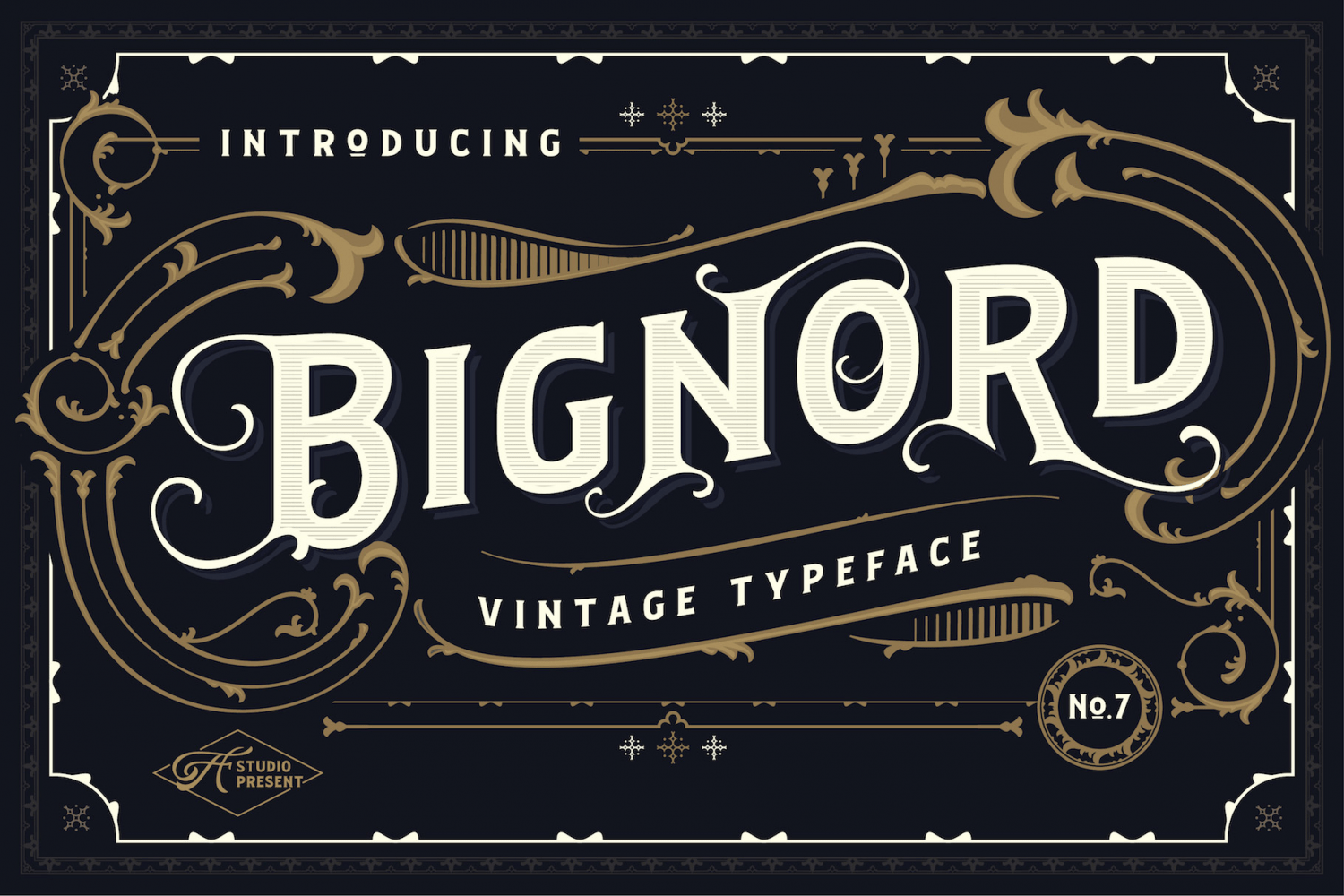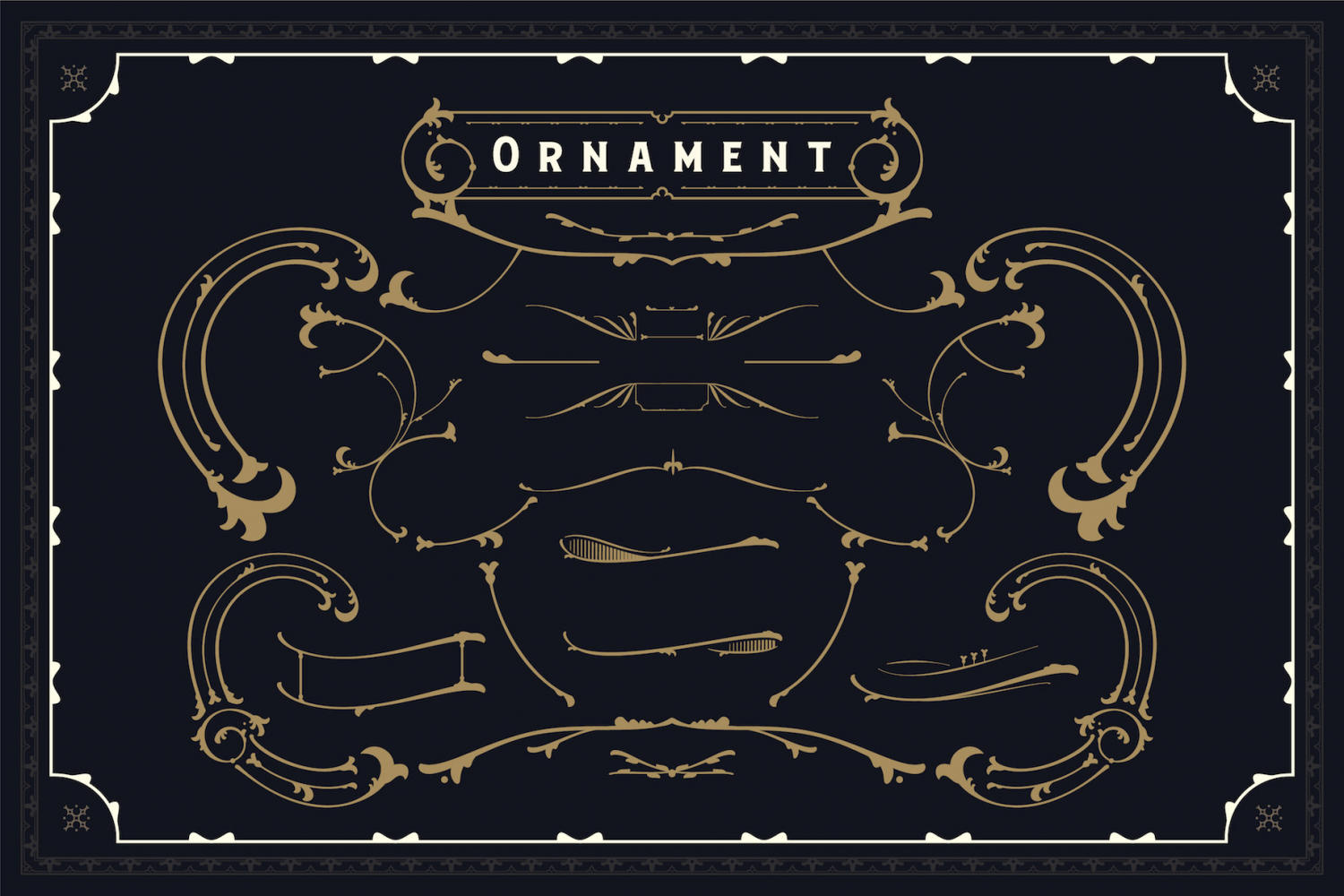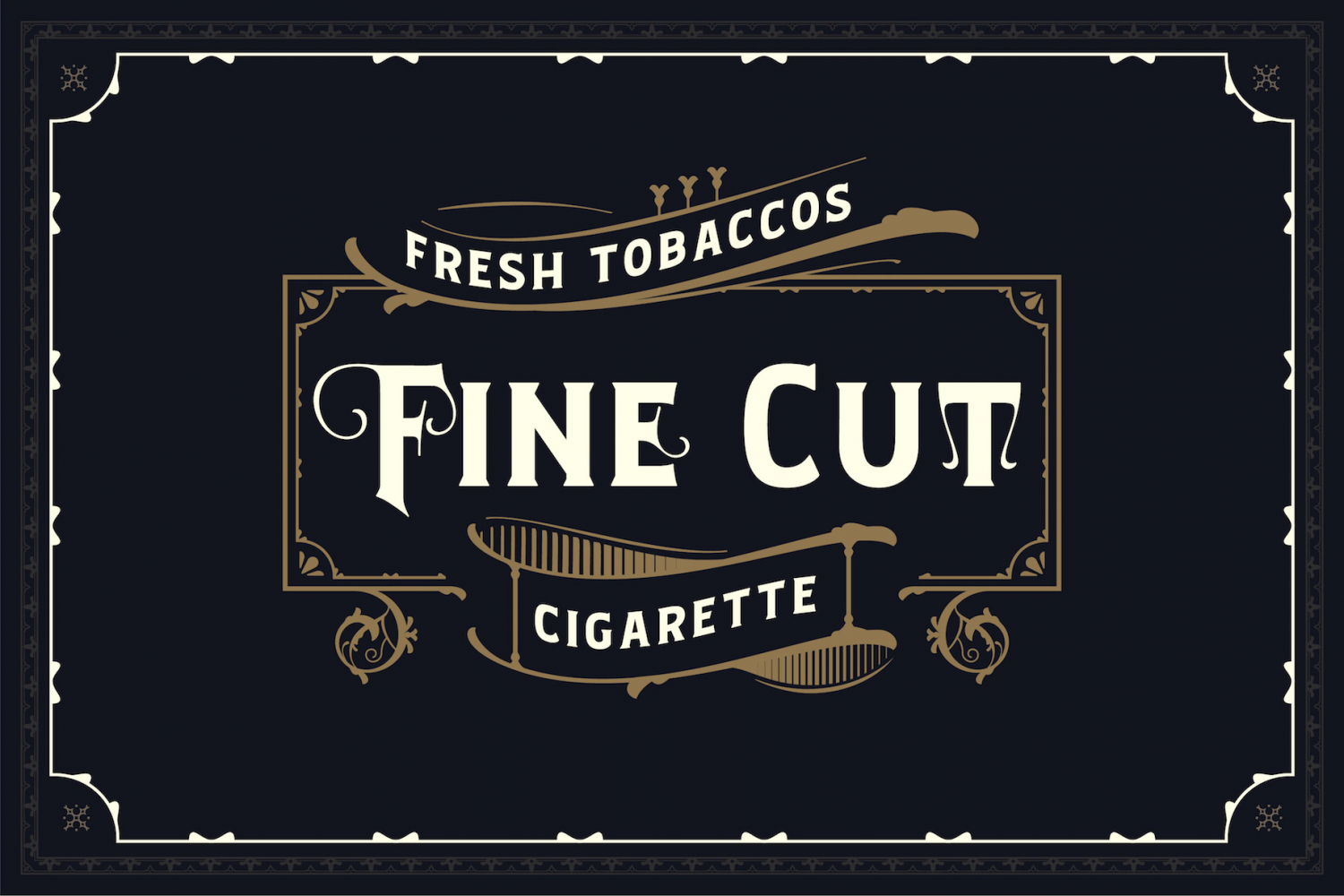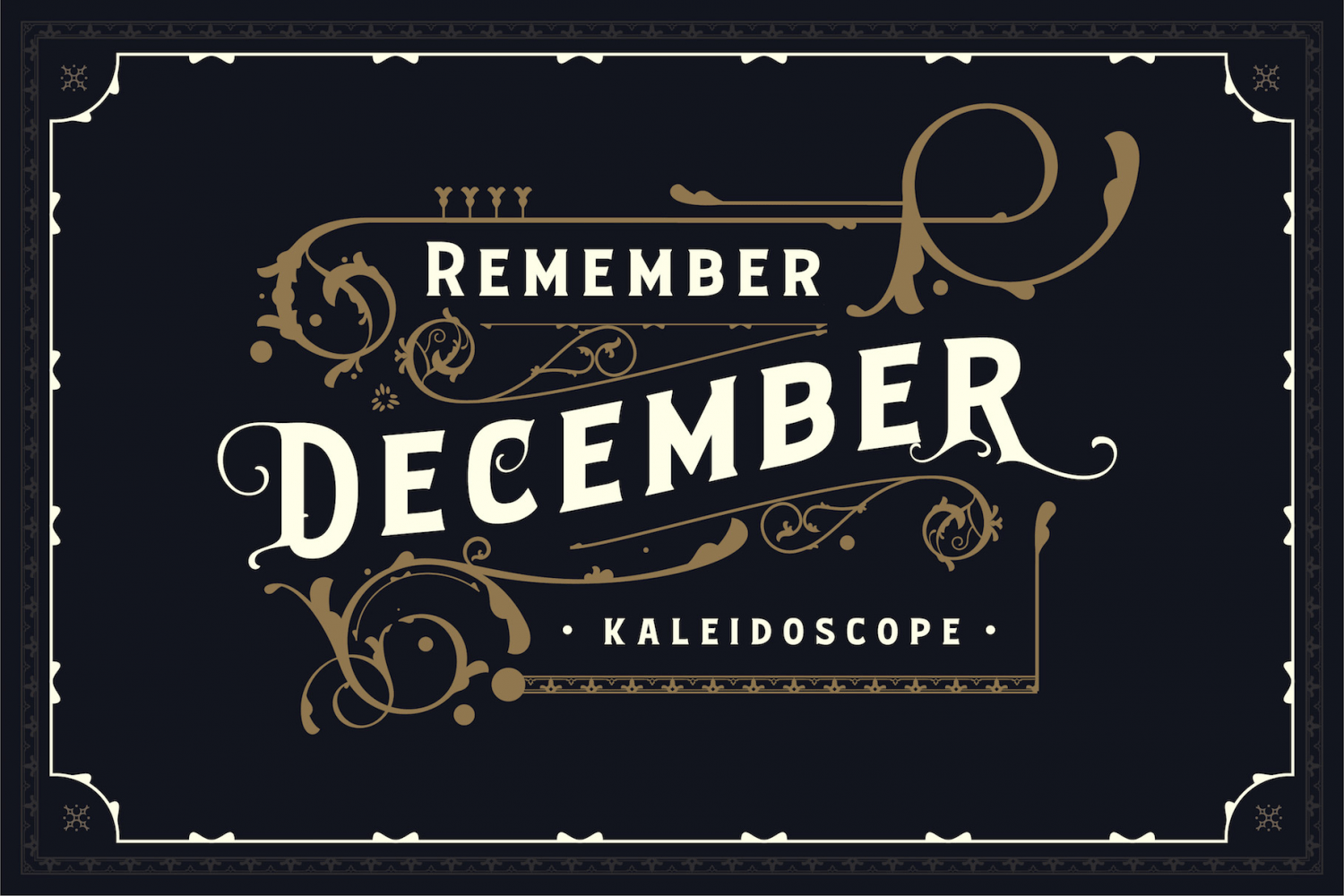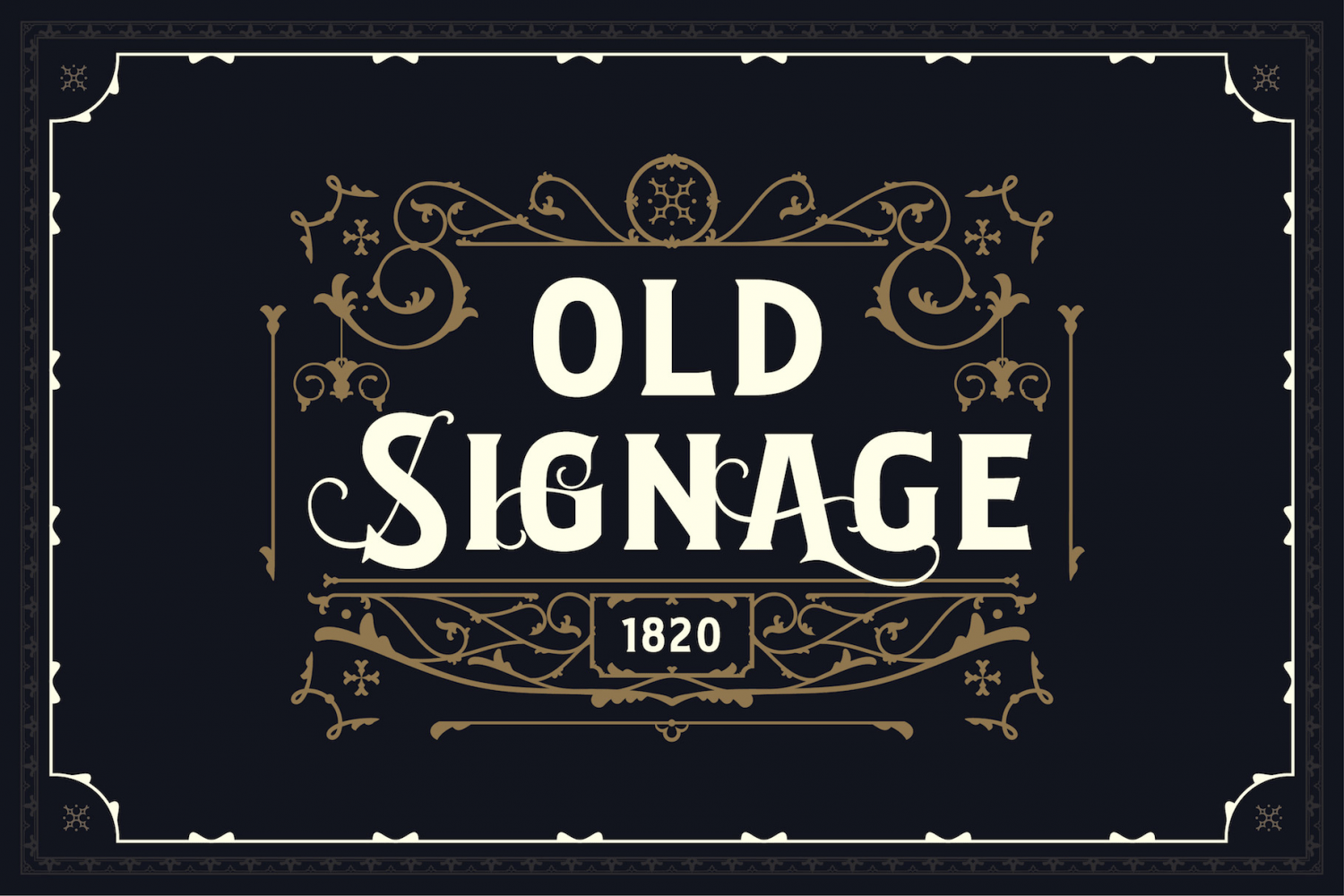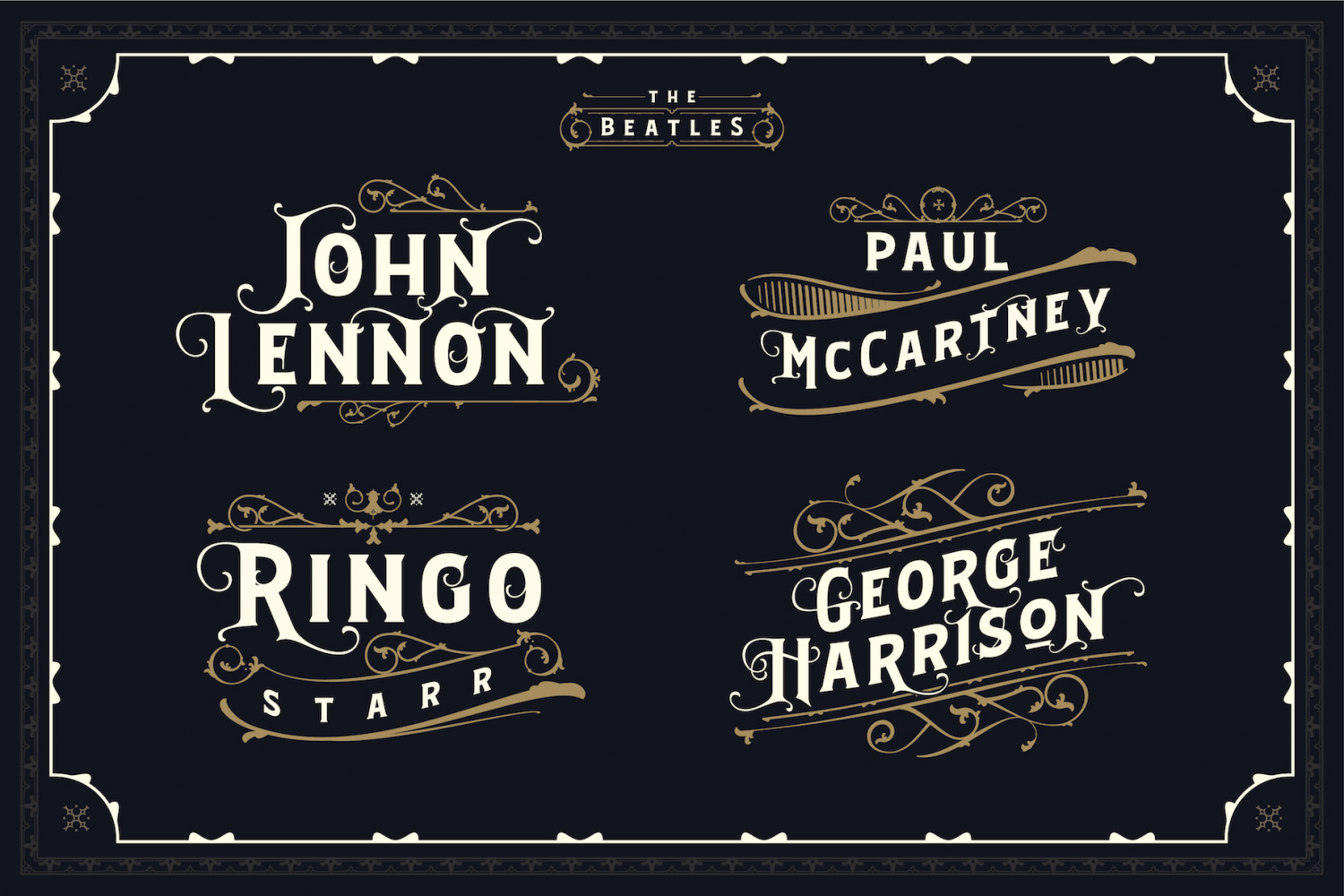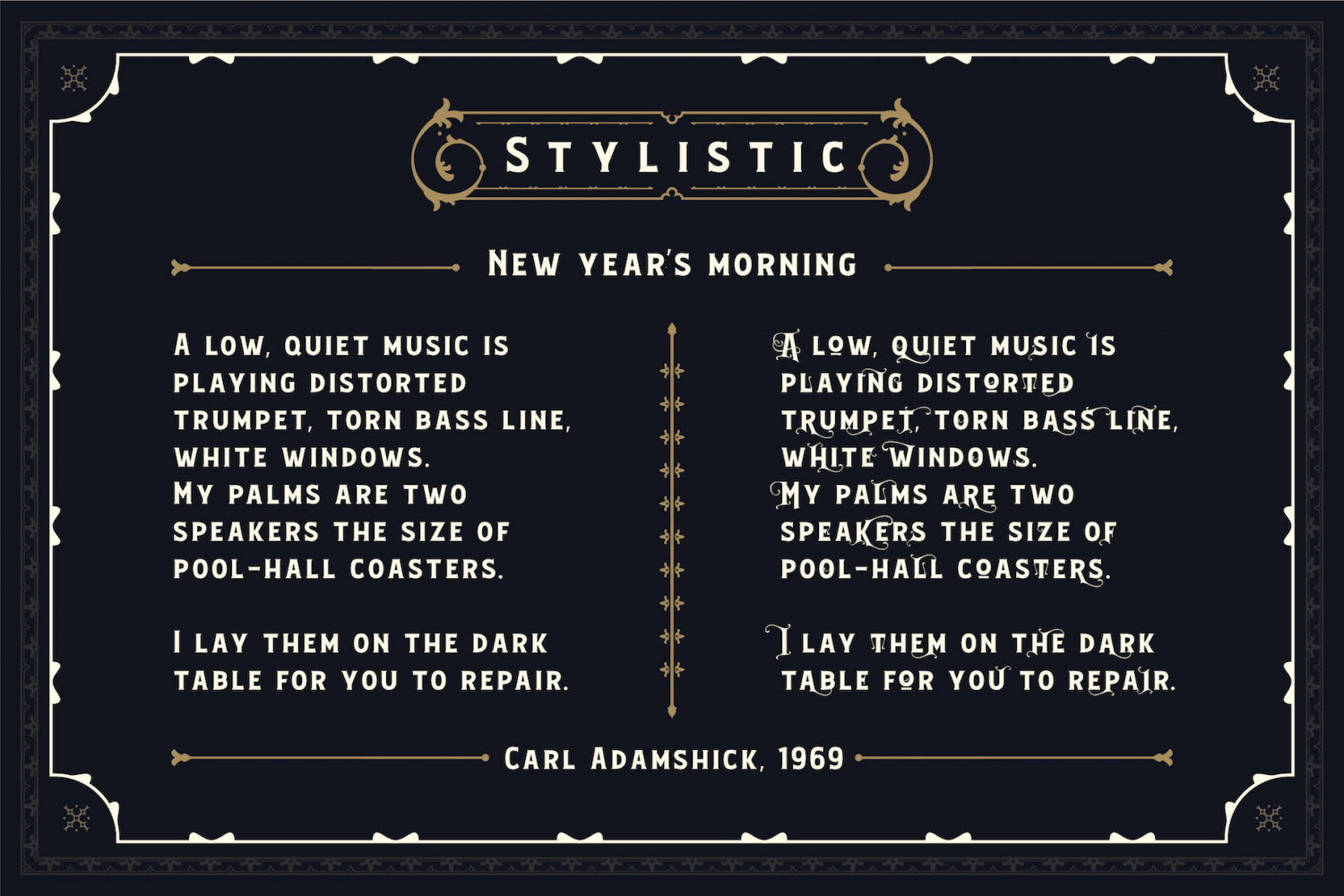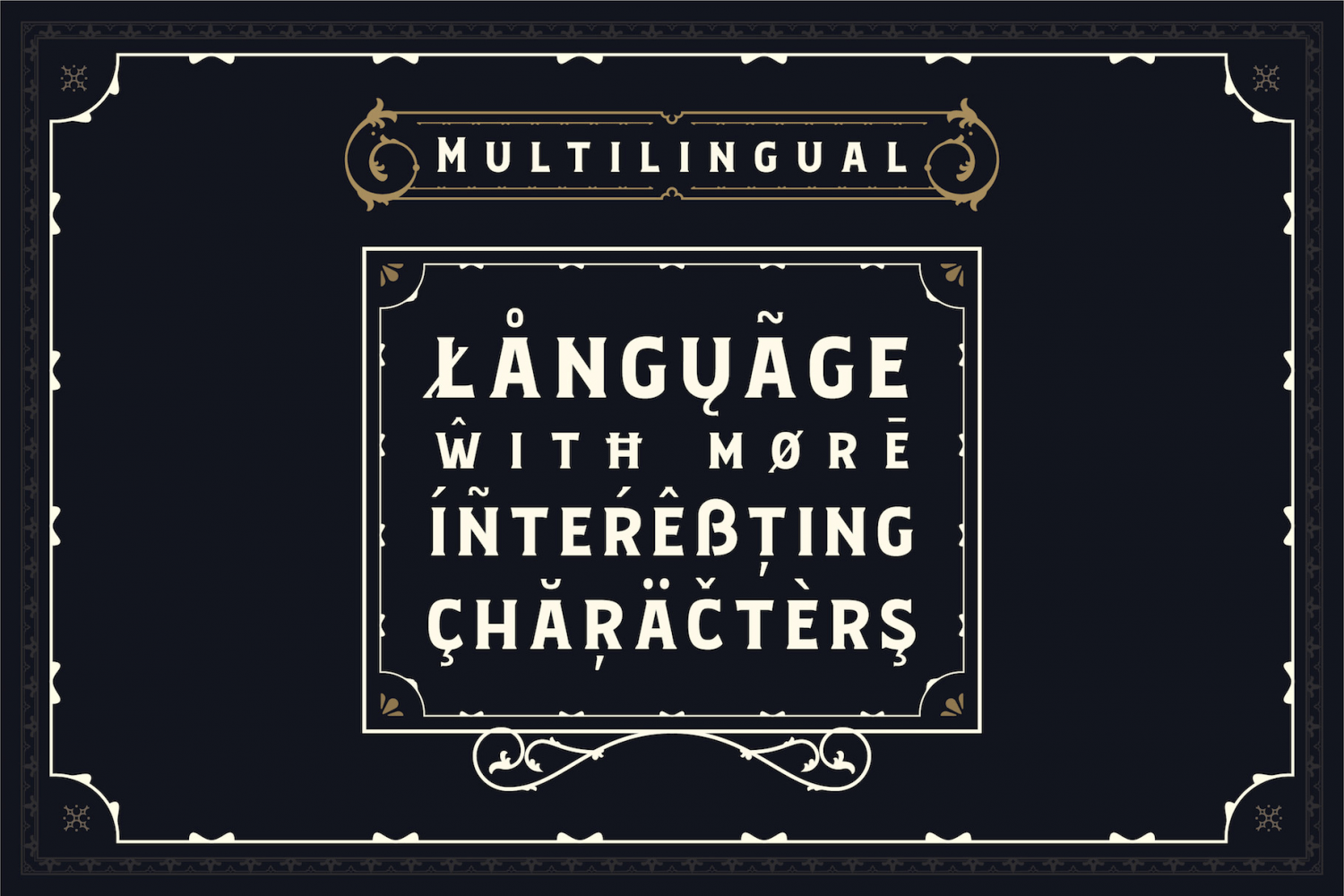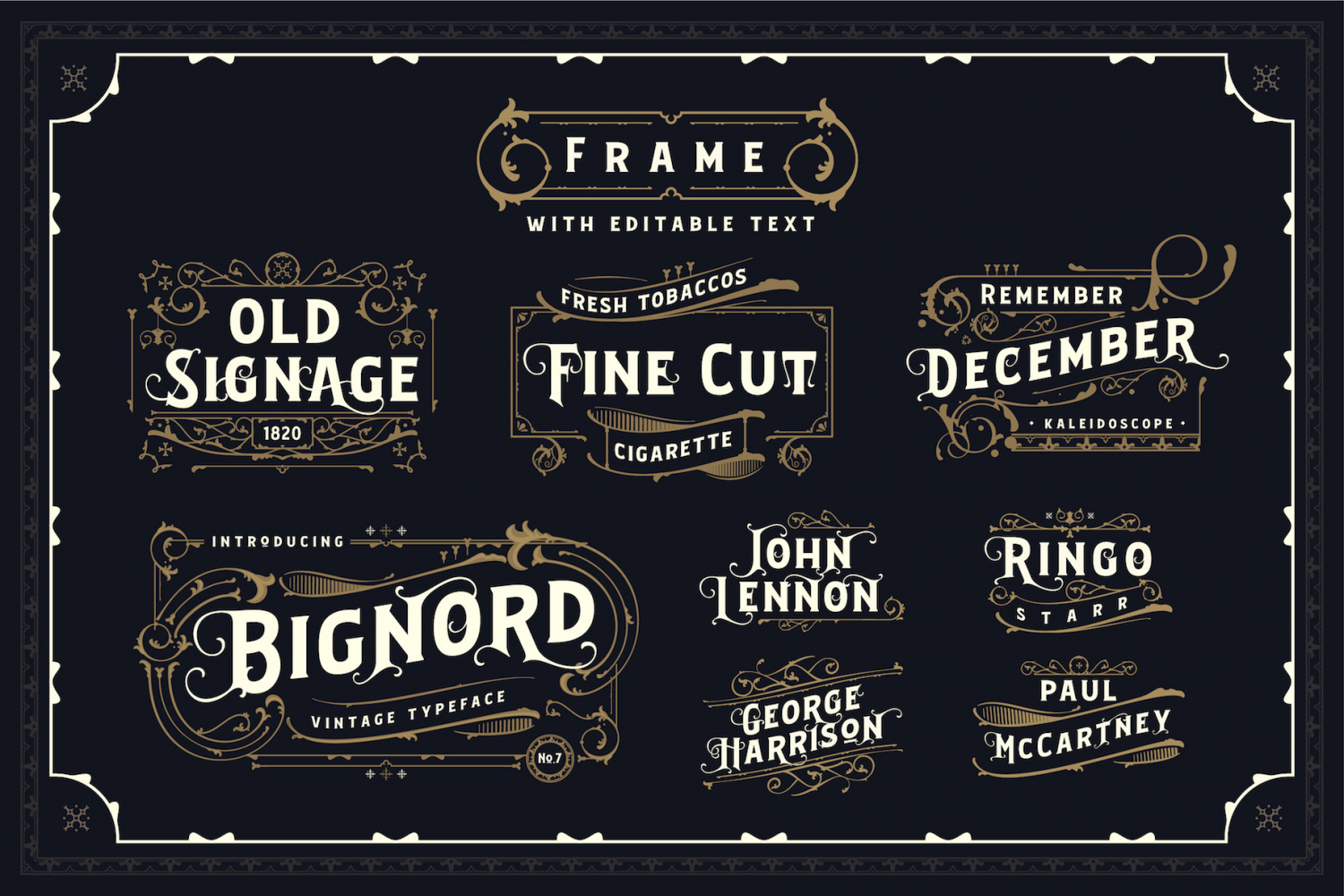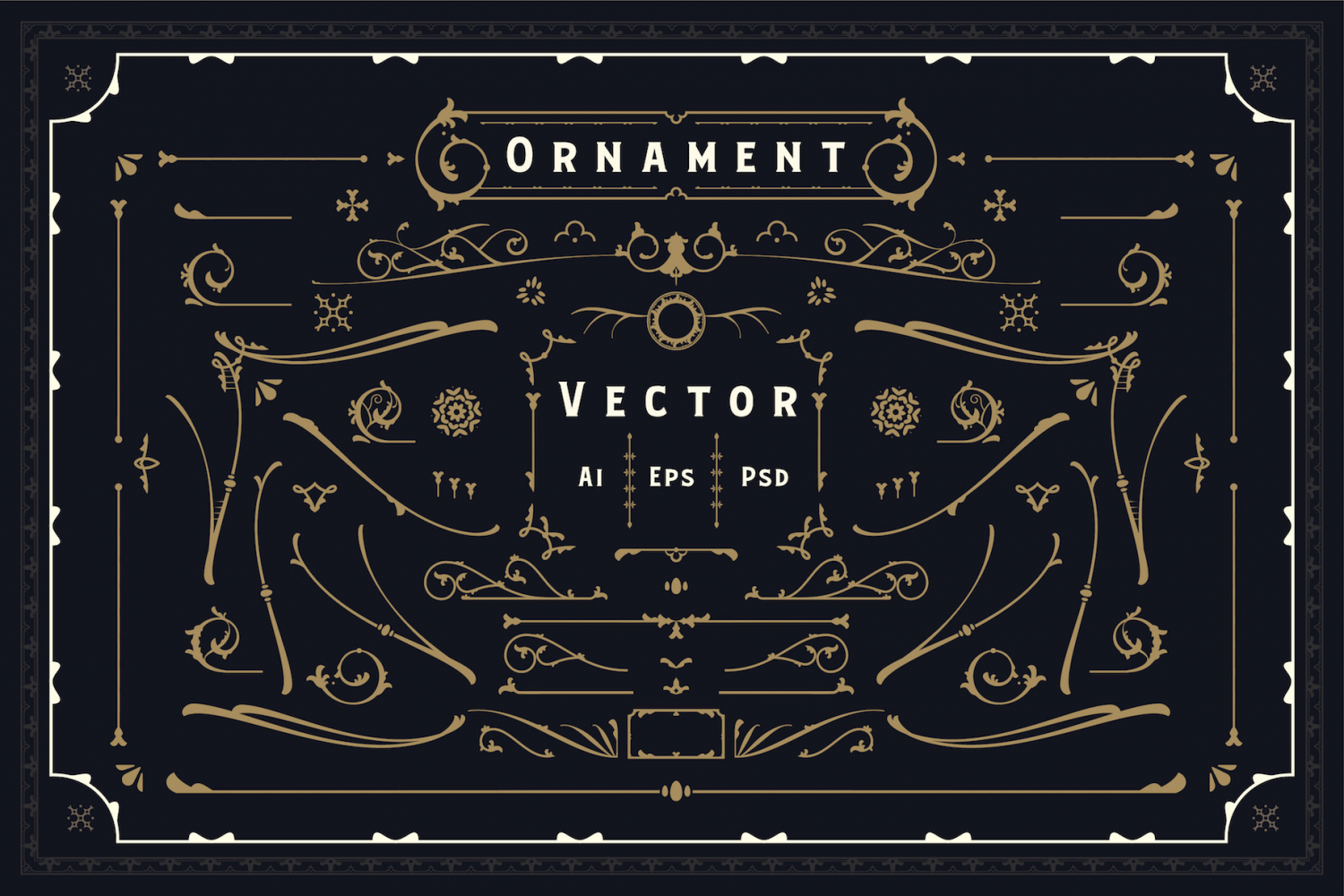
Bignord
Font Family by AF Studio
Bignord is a brand new fonts with vintage look and style inspired from many vintage packaging and from typographic cover lettering. Bignord is available up to 5 different stylistic on some letter so you can create the vintage feel from the swash of each letter. This fonts was created for designing cover, label, posters, logo, branding, etc who needs the vintage design structure. It also comes with the extra bonus such as Ornament, Frame, Lines and Editable layout.